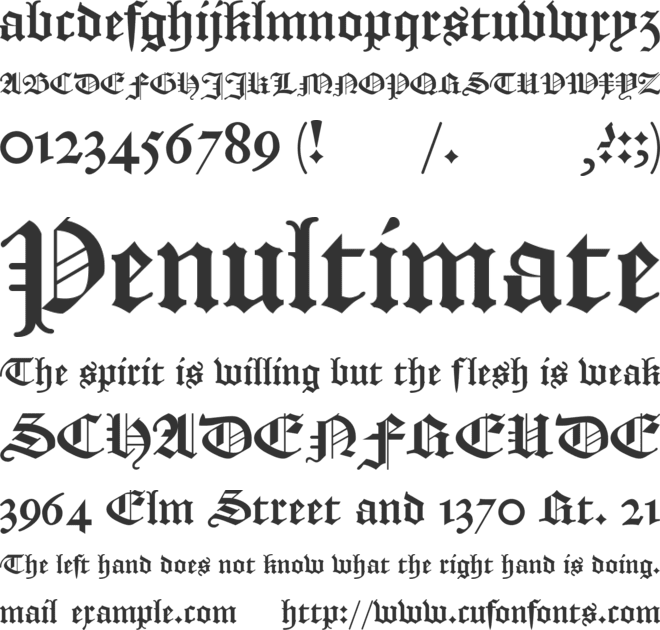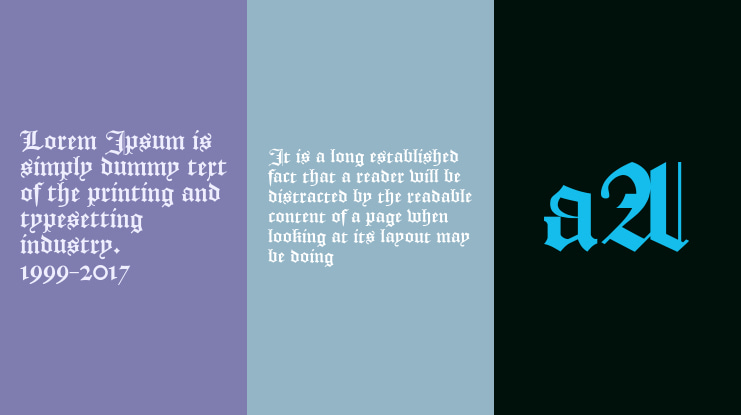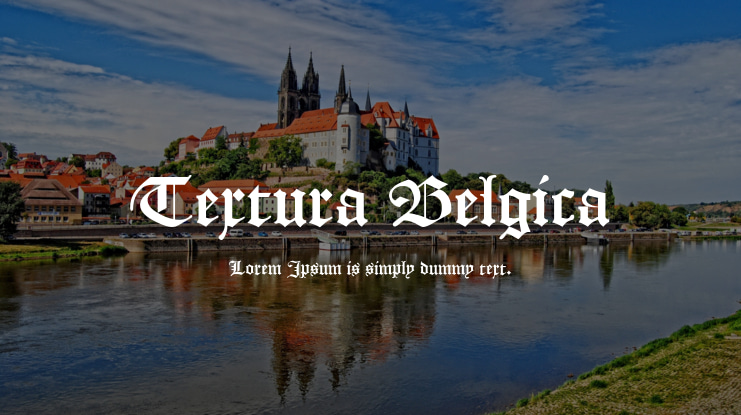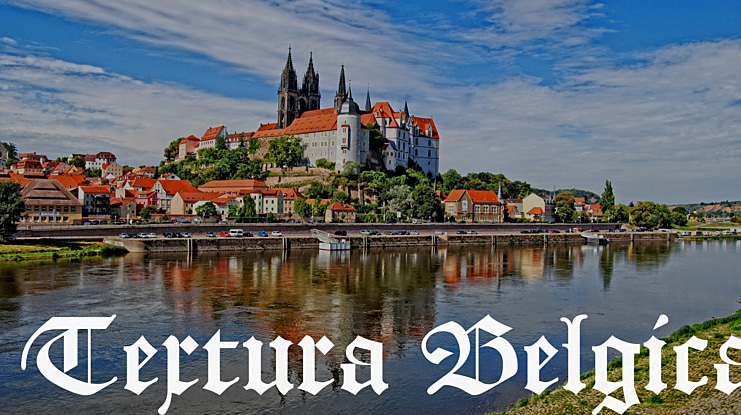
Not actually 'medieval'; Early Modern, rather.
De schrik van menig student Nederlands! Textura Belgica is een traditiegetrouwe digitalisering van het Gotische lettertype zoals dat van de 16e tot in de 20e eeuw in het Nederlands taalgebied gebruikt werd.
Traditiegetrouw wil zeggen dat er in dit lettertype, anders dan in veel andere Gotische lettertypes die je online kunt vinden, volledige ondersteuning is voor de bijzondere tekens die je nodig hebt om naar hartelust je persoonlijke facsimiles maken!
Het lettertype is gedigitaliseerd aan de hand van een hoge-resolutie scan van een vel waarop alle letters staan, zoals gemaakt door de Gentse lettersnijder en -gieter Hendrick van den Keere. Naast dit vel, dat ik als basis heb gebruikt, heb ik gebruikt:
- scans van de Statenvertaling uit 1637 (https://www.bijbelsdigitaal.nl/view/?bible=sv1637);
- via Google Boeken 'Verbael van 't Verhandelde over de Gravamina, Kerckelijke swaricheden tot Rotterdam, Oudewater, etc.' (https://books.google.nl/books?id=zRZjAAAAcAAJ&printsec=frontcover&);
- mijn kleine privécollectie (twee bijbels, begin 19e en eind 18e eeuw, en een catechismus, tweede helft 18e eeuw).
Ik heb dit lettertype 'Textura Belgica' genoemd aangezien de term 'Belgica' in de tijd dat dit soort lettertype zijn 'gouden tijdperk' had nog als Latijnse benaming voor heel de Nederlanden gold (zo was de Latijnse naam van Nieuw-Nederland 'Nova Belgica').
The terror of many a student of Dutch Language and Culture! Textura Belgica is a true to tradition digitalisation of the blackletter type as it was used from the 16th into the 20th century in the Dutch language area.
With 'true to tradition' is meant that, in this font, differently from many other blackletter fonts you can find online, there is full support for the special characters you need to make your personal facsimiles! More...
This font had been digitalised using a high-resolution scan of a sheet with all letters, as made by type cutter and founder Hendrick van den Keere, from Gent in the 16th century. Beside this sheet, which I used as a base, I used:
- scans of the Dutch 'States Translation' of the Bible from 1637 (https://www.bijbelsdigitaal.nl/view/?bible=sv1637);
- via Google Books 'Verbael van 't Verhandelde over de Gravamina, Kerckelijke swaricheden tot Rotterdam, Oudewater, etc.' (https://books.google.nl/books?id=zRZjAAAAcAAJ&printsec=frontcover&);
- my own little private collection (two Bibles, early 19th and end 18th century, and a catechism, second half 18th century).
I have called this font 'Textura Belgica' as the term 'Belgica' during the 'golden age' of this type of font was used as the Latin name of all the Netherlands (equivalent in area with the modern Benelux). For example, the Latin name of the Dutch colony New Netherland was 'Nova Belgica'.